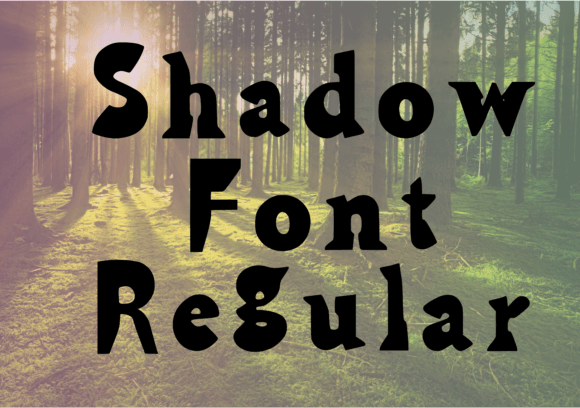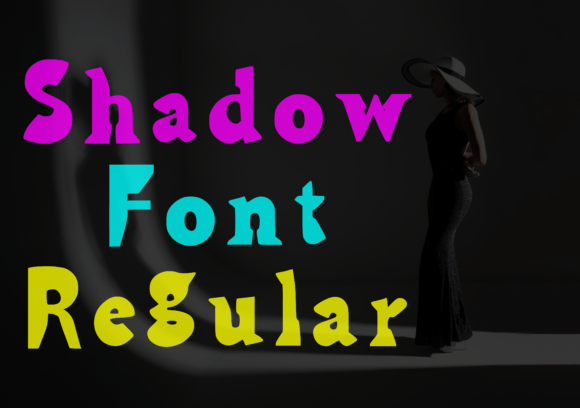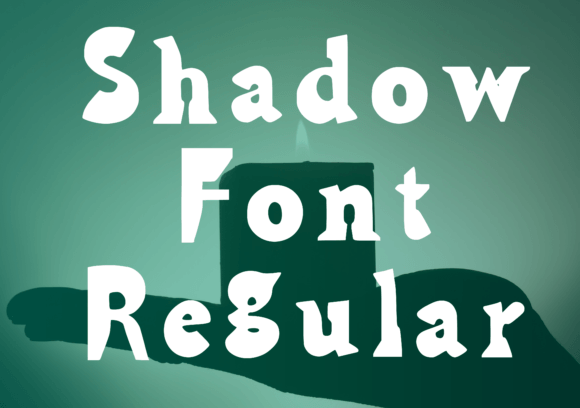
Shadow
Shadow: A Unique and Quirky Slab Serif Font
Shadow is a unique and quirky slab serif font designed for excellent readability across all screen sizes. This versatile typeface brings distinctive character to various business and creative applications.
Key Features of Shadow
• Unique Design: Offers quirky, distinctive letterforms.
• High Readability: Maintains clarity across all screen sizes.
• Versatile Style: Features thick, block-like serifs for impact[2].
• Strong Presence: Creates clear visual communication[2].
Best Uses for Shadow
Thanks to its versatile characteristics, Shadow works especially well for:
When using Shadow in your designs, keep these tips in mind:
• Try it for both large and small text sizes.
• Use its quirky character for distinctive designs.
• Take advantage of its readability for screen-based projects.
• Let its versatility enhance business documents.
To sum up, Shadow is an excellent choice for designers seeking a unique and readable slab serif font. Its versatility makes it perfect for various business and creative projects. Whether you’re creating business cards, designing posters, or developing journals, Shadow offers the perfect blend of quirkiness and clarity.
Furthermore, Shadow’s distinctive design allows it to shine in contexts where both uniqueness and readability are key. From digital displays to printed materials, this font can elevate your projects with its quirky style while maintaining excellent legibility across all sizes[2].
In conclusion, Shadow truly captures the essence of accessible design in slab serif typography. Its ability to work across different applications and screen sizes shows how well it can serve various business needs. Therefore, for those wanting to add a touch of quirky professionalism to their work, Shadow can enhance any design with its distinctive style. Ultimately, it’s perfect for designers aiming to make a unique, readable impact across business-focused projects.